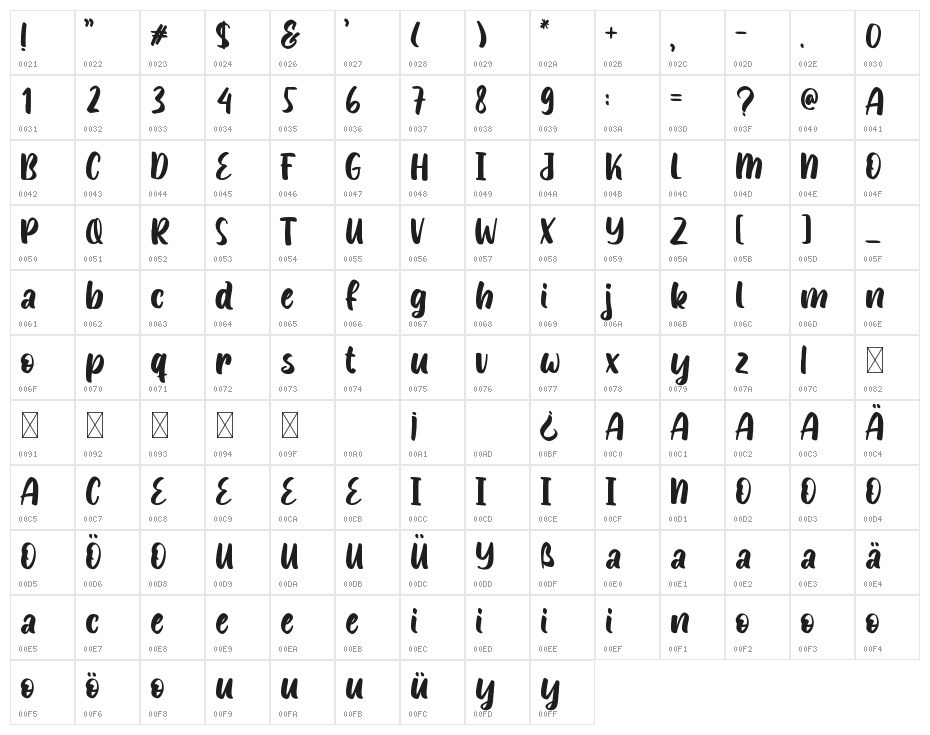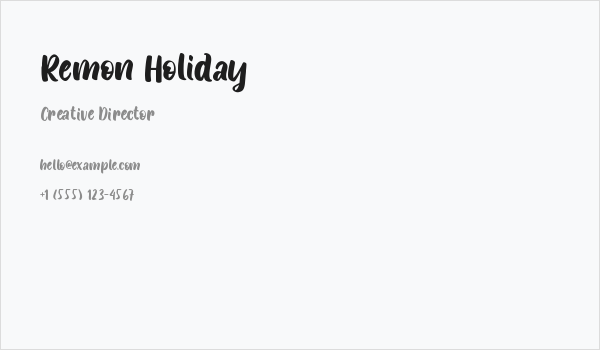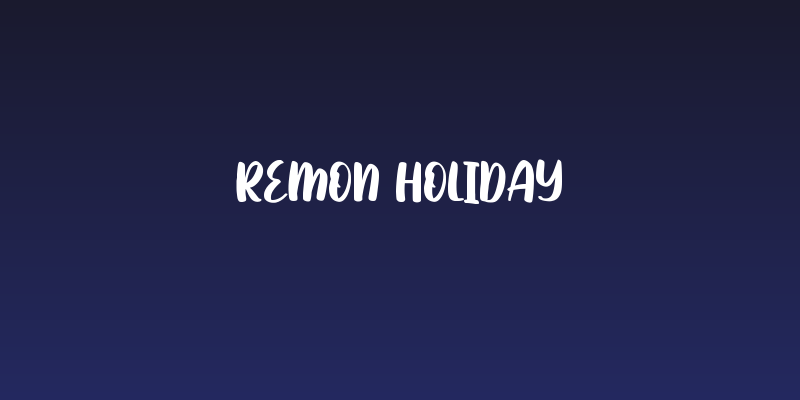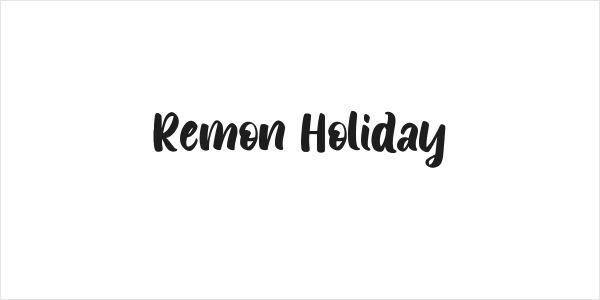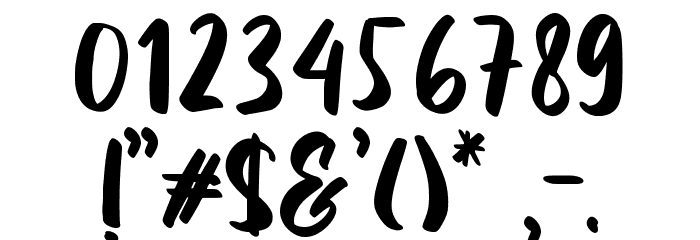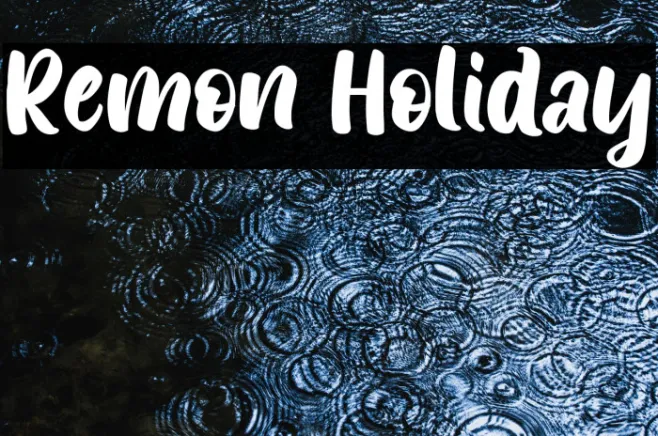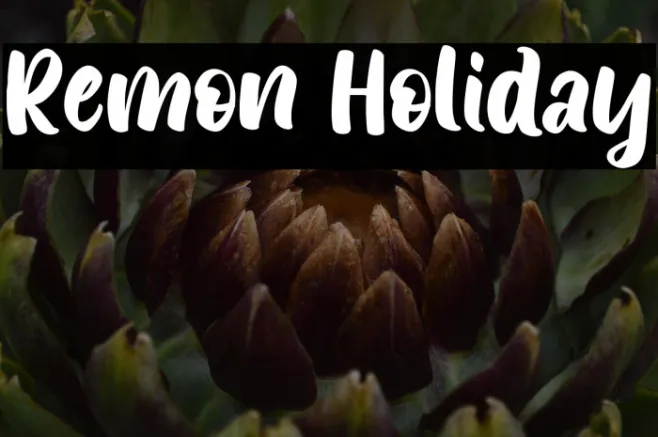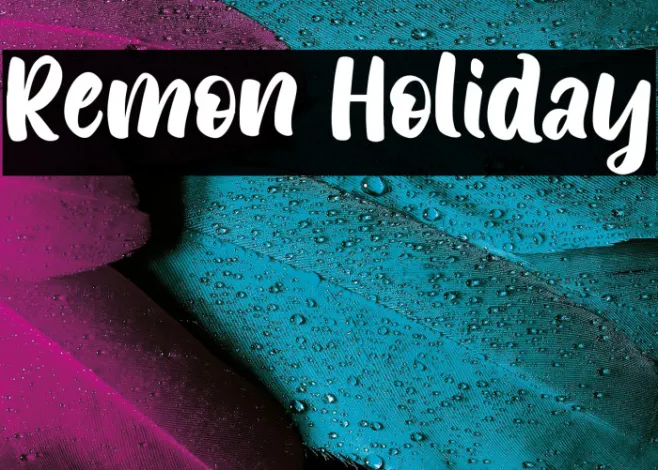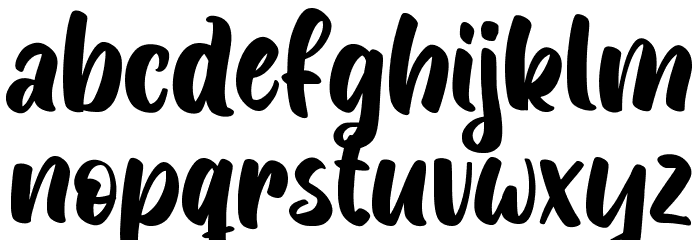
Remon Holiday Font
Remon Holiday Description
This font features a bold and playful handwritten style, characterized by its thick, rounded strokes and a lively, energetic appearance. The letters are slightly slanted, adding a dynamic feel, while maintaining legibility. The uppercase and lowercase letters are well-balanced, with a consistent flow that enhances its casual yet stylish look. The numbers and special characters follow the same design principles, ensuring uniformity across all glyphs. This font is ideal for projects that require a personal touch, such as invitations, greeting cards, or branding materials that aim to convey a sense of warmth and approachability.
| Overall Style | Playful, Casual |
| Proposed Projects | Ideal for invitations, greeting cards, branding materials, and projects needing a personal touch. |